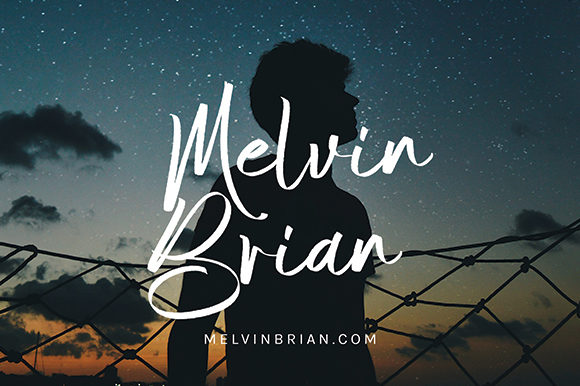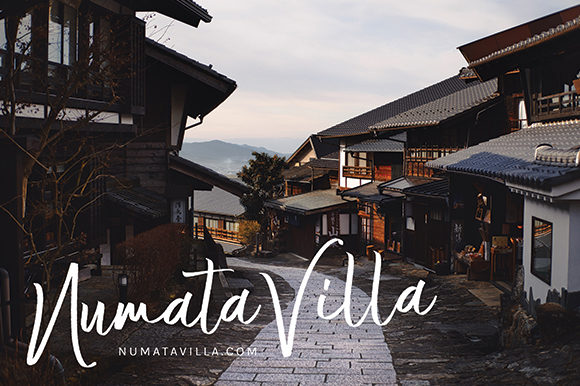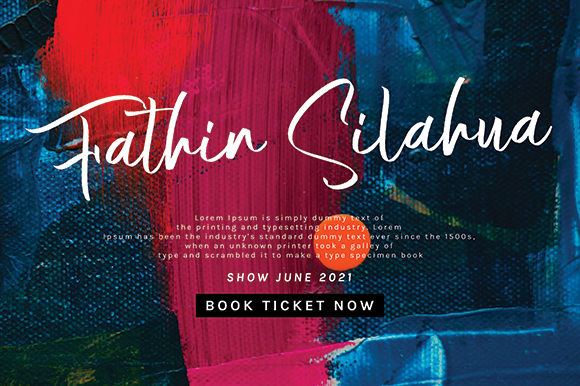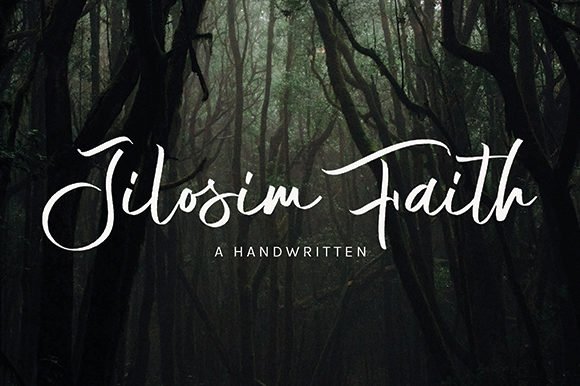
Introduction to Jilosim Faith Font
Jilosim Faith is an enchanting handwritten font.
This versatile script font has a wide spectrum of applications ranging from greeting cards to headlines and is guaranteed to add a romantic feel to your next project This font is PUA encoded which means you can access all of the beautiful glyphs and swashes with ease.
Jilosim Faith Font offers exceptional quality and versatility, making it a valuable addition to your design toolkit. Whether you’re creating for personal projects or commercial use, Jilosim Faith Font delivers professional results.